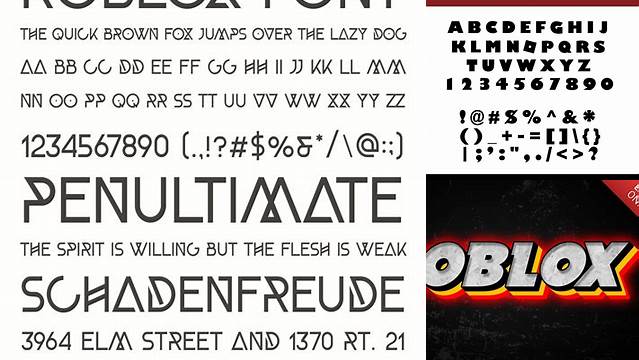
Discovering Free Roblox Fonts: A Blast From The Past!
Hey everyone, let's dive into the world of free fonts for Roblox and explore some awesome, old-school styles! Finding the perfect font can really make your Roblox game or avatar stand out, adding that extra bit of personality. And guess what? You don't always have to spend Robux! There's a treasure trove of free fonts out there that can bring a nostalgic vibe to your creations. We're talking about those classic, retro looks that remind us of the early days of Roblox, right? So, get ready to discover some cool font options, how to use them, and where to find them. Let's get started on this font-tastic adventure! 🤩
2. Exploring the Charm of Classic Roblox Fonts
Alright, guys, let's talk about the magic of classic Roblox fonts. These aren't just fonts; they're a trip down memory lane. They embody the original aesthetic of Roblox, the spirit of those early games we all loved. Think about those blocky, pixelated styles, or maybe the slightly quirky, hand-drawn look. These fonts bring a sense of nostalgia and authenticity. They can really transport you back to the early 2000s. The charm lies in their simplicity and distinctive character. These fonts perfectly capture the raw, unfiltered essence of the platform's beginnings.
Using these fonts in your game can evoke a feeling of warmth, playfulness, and familiarity. Imagine a game intro with a font that screams 'classic Roblox.' It immediately grabs the attention of players, creating a connection before they even start playing. It's like a secret handshake, a nod to the veterans of the Roblox community. These fonts aren't just visual elements; they are storytellers. They whisper tales of epic adventures, creative freedom, and the evolution of the platform itself. Whether it's a simple game title, an in-game interface, or even chat bubbles, these fonts add a unique layer of character. They provide a vintage touch that makes your game feel genuine and unique. It allows your game to stand out from the crowd. So, when you're selecting a font, consider the message you want to convey. How do you want players to feel when they see it? Do you want them to feel nostalgia, joy, or a sense of belonging? The right font can do all of that and more.
Furthermore, the use of these classic fonts can also act as a bridge, connecting the new generation of players with the history of the platform. It introduces them to the heritage of Roblox and enriches their gaming experience. These fonts are more than just a stylistic choice. They're a part of the cultural identity of Roblox. And embracing this heritage can make your game a part of something bigger, a celebration of the platform's journey. It is a bold step, creating a visual language that both appeals to the veterans and intrigues the newcomers. So, are you ready to revive the magic of classic Roblox fonts?
2.1. The Nostalgic Appeal of Retro Roblox Typefaces
Alright, let's delve deeper into the nostalgic appeal of retro Roblox typefaces! These fonts are like time capsules, instantly transporting us back to the good old days of the platform. Think of the iconic 'Roboto' or the blocky fonts that defined early Roblox games. These fonts resonate with a generation that grew up with the platform, creating an instant connection and sense of familiarity. The charm of these retro typefaces lies in their simplicity and unique character. They're not overly polished, but rather have a raw, unrefined feel. It perfectly aligns with the platform's early ethos of creativity and user-generated content. The fonts feel authentic, mirroring the essence of the original games that were made by players.
Their unique style reflects a time when the platform was still growing and evolving. It wasn't a polished, professional environment, and the fonts reflected that. This unpretentiousness is part of their appeal, adding a layer of authenticity and charm that modern, sleek fonts often lack. Using these retro fonts in your game can evoke a strong emotional response. The familiarity of these fonts can trigger fond memories of gaming with friends, the thrill of discovering new worlds, and the joy of creating. It's a powerful tool to connect with your audience on a deeper level. Think of these fonts as visual cues that trigger an immediate emotional response.
Furthermore, the use of these fonts also helps in creating a cohesive and thematic experience. They blend seamlessly with the platform's visual history. It creates a sense of visual unity that enhances the overall gaming experience. It makes your game feel like a loving tribute to the platform's past. They’re a testament to Roblox's journey, reflecting the evolution of its visual identity.
In essence, these retro fonts are more than just aesthetic choices; they are storytelling tools. They capture the platform's history, evoking strong emotional connections, and strengthening your game's thematic unity. So, if you're aiming to create a game with a genuine, nostalgic vibe, don't underestimate the power of retro Roblox fonts. They're your secret weapon to capture the hearts of veteran players and introduce new players to the magic of the early days.
2.2. Identifying Popular Free Roblox Fonts from the Past
Hey everyone! Let's talk about identifying those popular free Roblox fonts from the past. These fonts have become a recognizable part of the Roblox experience, and they bring with them that awesome feeling of nostalgia. If you've been around Roblox for a while, you've probably noticed some recurring font styles that pop up again and again. These fonts have become staples of the platform. They're found in game titles, interfaces, and even in chat. So, which ones are the most popular?
First off, you can't talk about classic Roblox fonts without mentioning the 'Roboto' family. Roboto is a versatile sans-serif font. It’s been a go-to choice for a long time due to its clean, readable design. Then there are the blocky fonts that capture the platform's iconic aesthetic. Think of those chunky, pixelated styles reminiscent of the game's early days. These fonts are perfect for creating that nostalgic vibe. You’ll also find fonts with a hand-drawn feel. These fonts have a slightly quirky, unique look. They are ideal if you want to add a touch of playfulness to your design.
3.2. Downloading and Installing Fonts on Your Computer
Alright, let's talk about downloading and installing fonts on your computer. It's not as complicated as you might think. You can add a unique touch to your Roblox creations. Here's a quick guide to get you going: